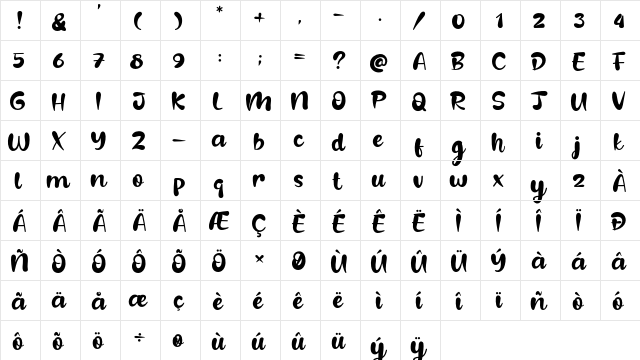
Beloved Daughter Regular
Design Context for Beloved Daughter Typeface
Beloved Daughter is a composed and adaptable typeface that performs quietly and consistently across a wide range of design contexts.